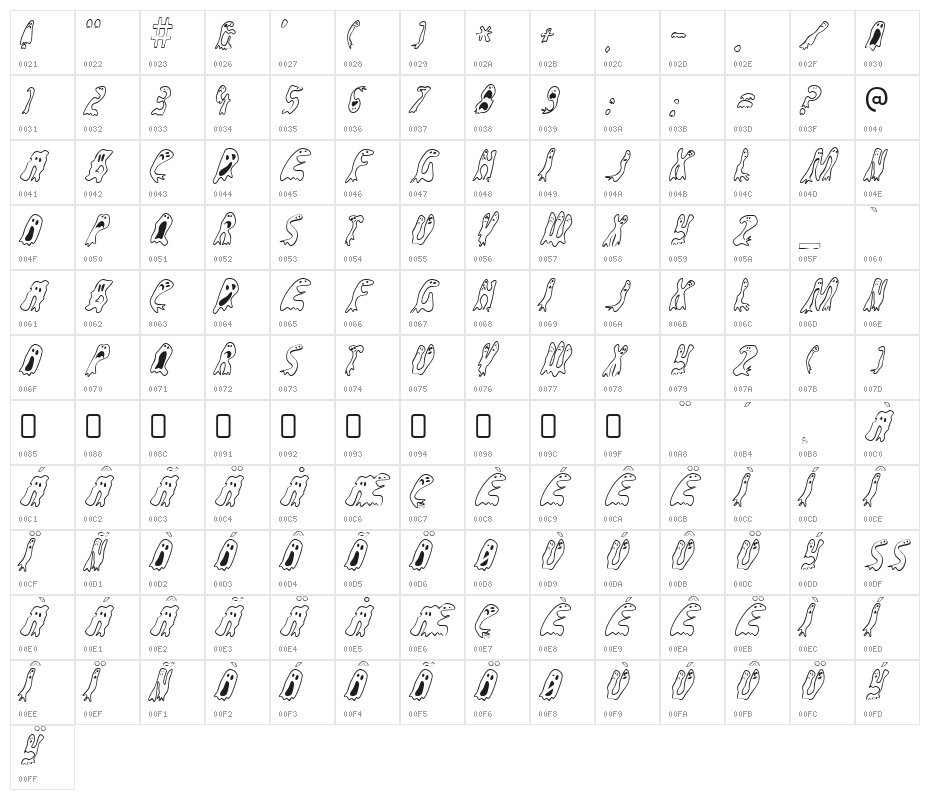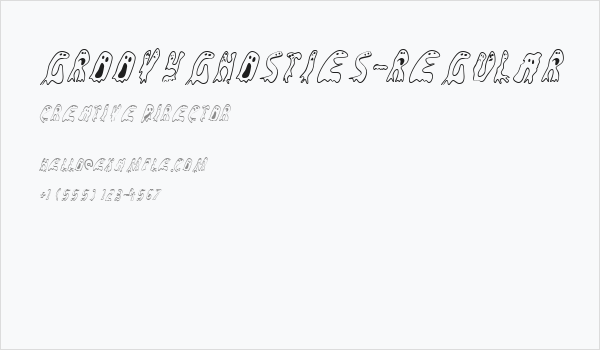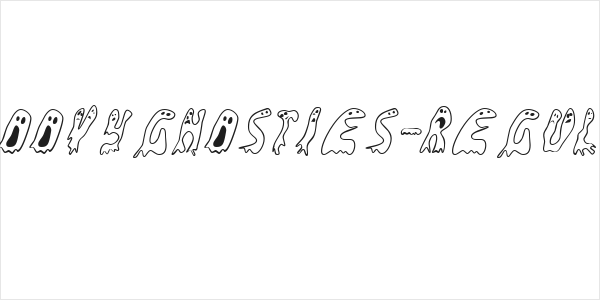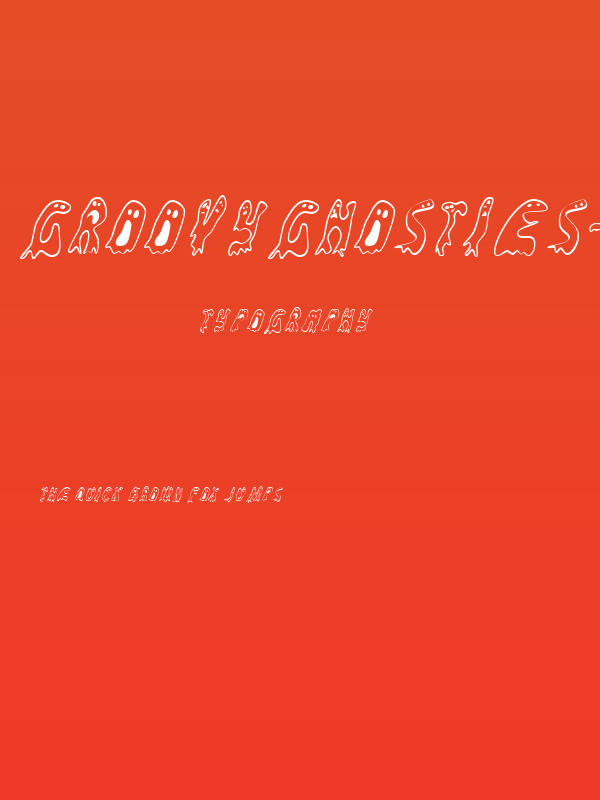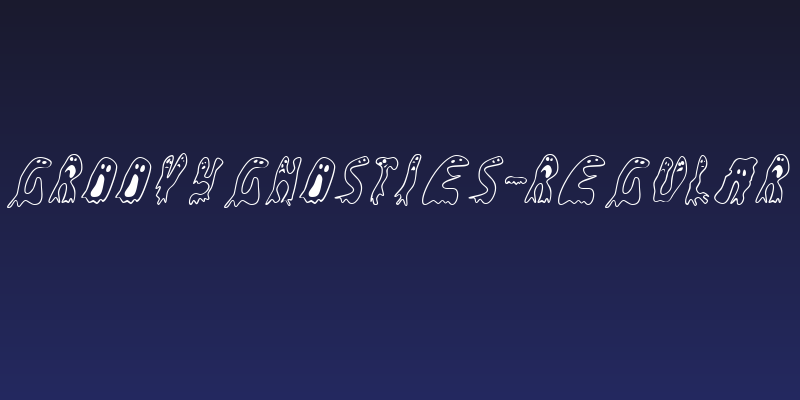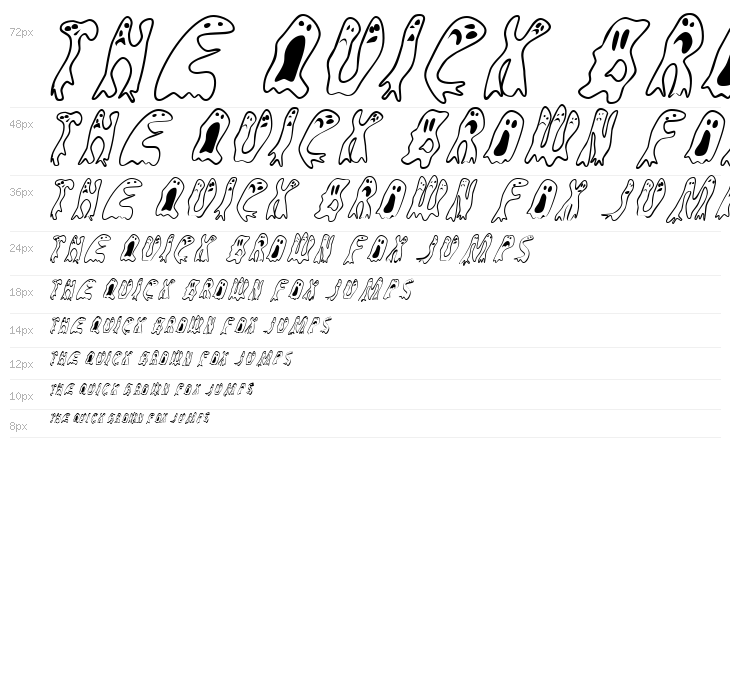
GroovyGhosties-Regular Font
This playful and whimsical font features characters designed as ghostly figures, each letter and number taking on a unique ghost shape. The font is characterized by its decorative and imaginative style, perfect for adding a spooky yet fun element to any design. The characters have a hand-drawn appearance with smooth curves and a slightly irregular outline, enhancing the playful ghost theme. The font includes a full set of uppercase and lowercase letters, numbers, and a selection of special characters, all maintaining the ghost motif. Its unique style makes it ideal for Halloween-themed projects or any design requiring a touch of whimsy and creativity.
Use CaseHeadlines, Logos, Themed designs
Proposed ProjectsIdeal for Halloween invitations, themed party decorations, children's books, or playful branding projects.